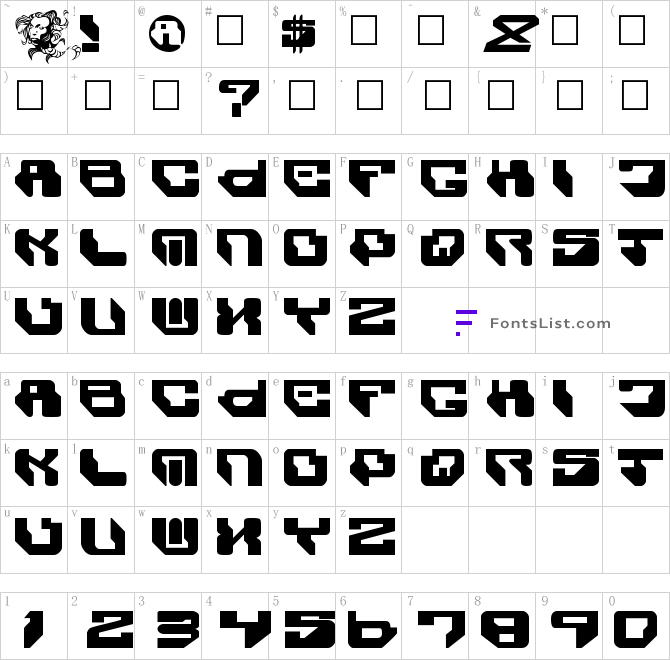
- Font Name:CaptivSystMRemiX
CaptivSystMRemiX-copy-1-.ttf is a very beautiful artistic font, CaptivSystMRemiX-copy-1-.ttf is widely used in the design and printing of various books and pictures,CaptivSystMRemiX-copy-1-.ttf has a strong visual impact,CaptivSystMRemiX-copy-1-.ttf is a commonly used font in newspapers, magazines and books, and is used in posters, e-commerce Poster design, store design, logo design, font design and other fields.CaptivSystMRemiX-copy-1-.